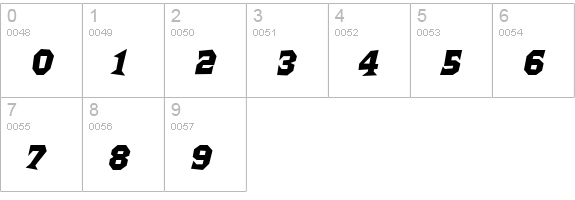
Bordello-BoldItalic Font Details
Bordello-BoldItalic is a striking and elegant font that exudes a sense of sophistication and glamour. Its bold and italic design adds a touch of drama and flair to any project, making it perfect for luxury brands, fashion magazines, and upscale events. The unique combination of thick strokes and slanted angles creates a dynamic and eye-catching aesthetic that commands attention. And the best part? Bordello-BoldItalic is completely free to use and download at FontsMarket.com. Embrace the bold and italic beauty of this font and elevate your designs to the next level with Bordello-BoldItalic.